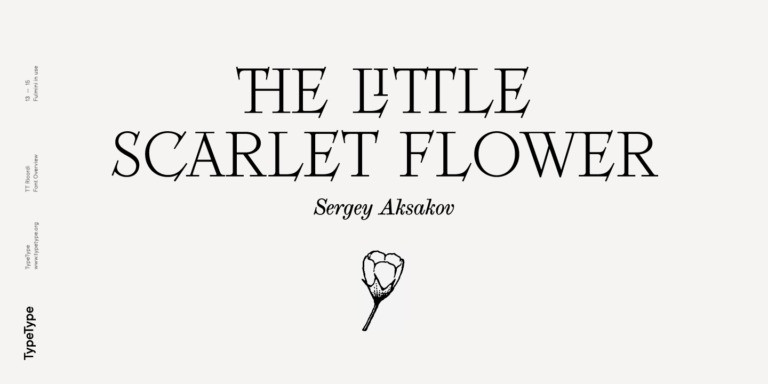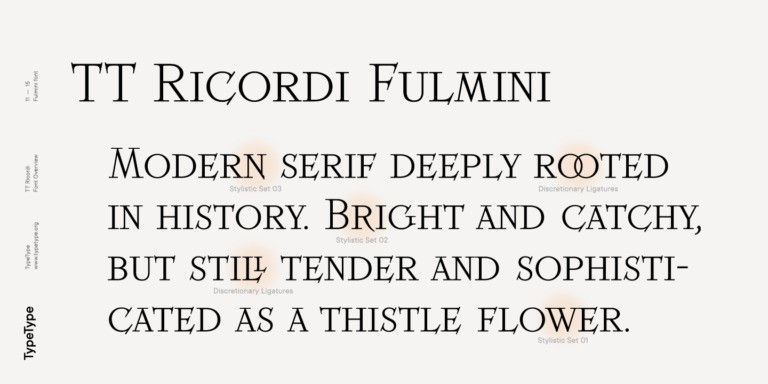
TT Ricordi Fulmini Font
TT Ricordi Fulmini Serif Font,  Perfectly fit for branding, logo, wedding things, greeting cards, fashion, lookbook, marketing promotion, anytime you want to look fancy elegant but still casual.